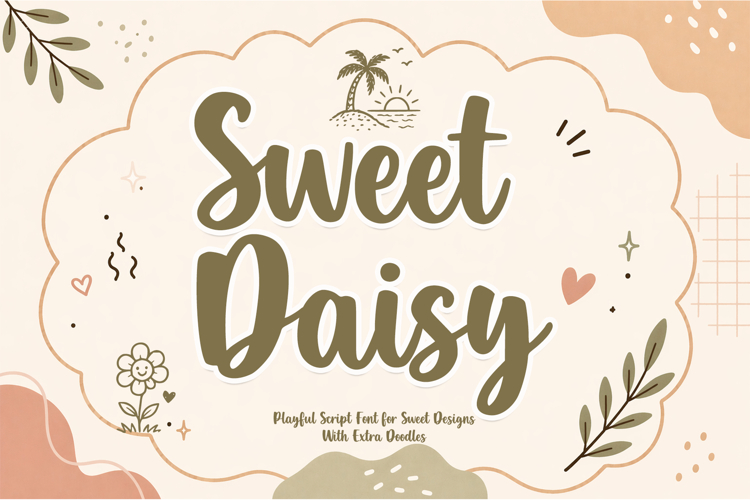
Sweet Daisy
Sweet Daisy is a playful script font designed to bring warmth, charm, and joyful energy into every creative project. Featuring smooth hand-drawn curves, bold rounded strokes, and a friendly natural flow, this font creates an inviting look that feels stylish, fun, and easy to use. Comes with doodle extras that add a delightful decorative touch, making every design feel more lively, sweet, and memorable.
Perfect for branding, logos, packaging, product labels, greeting cards, invitations, social media posts, posters, t-shirts, quotes, stickers, stationery, kids themes, cafe menus, beauty products, and modern handmade businesses.
Whether used for bold headlines or cute decorative accents, Sweet Daisy delivers a cheerful and versatile style that helps every design stand out beautifully.